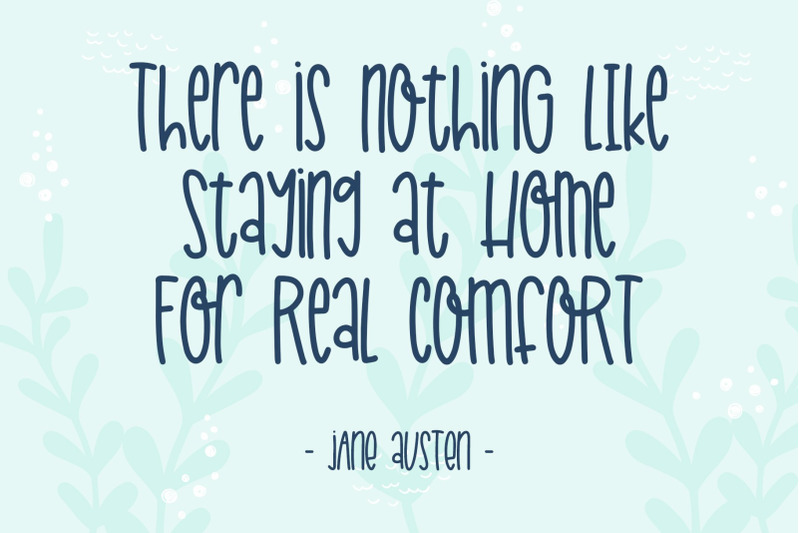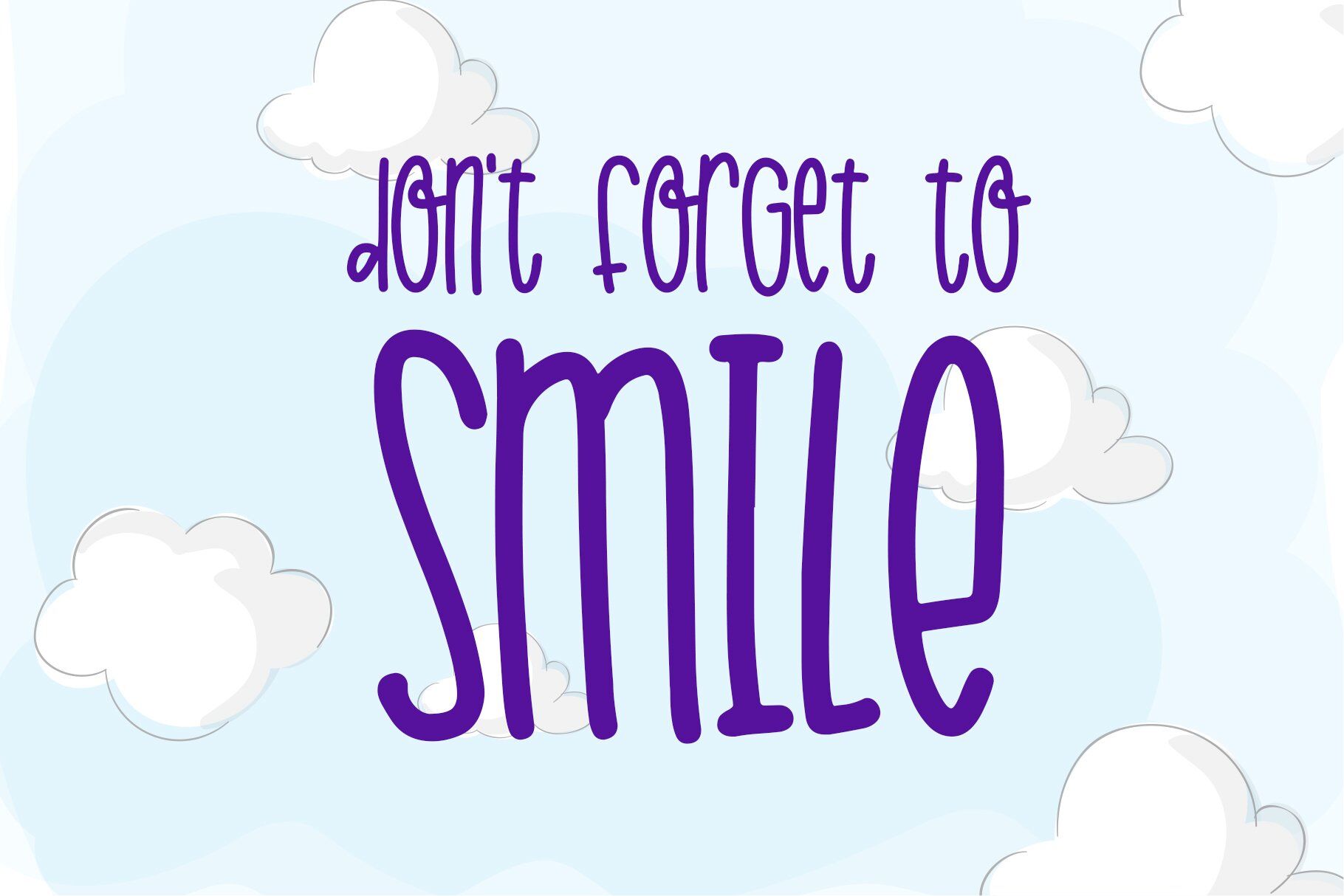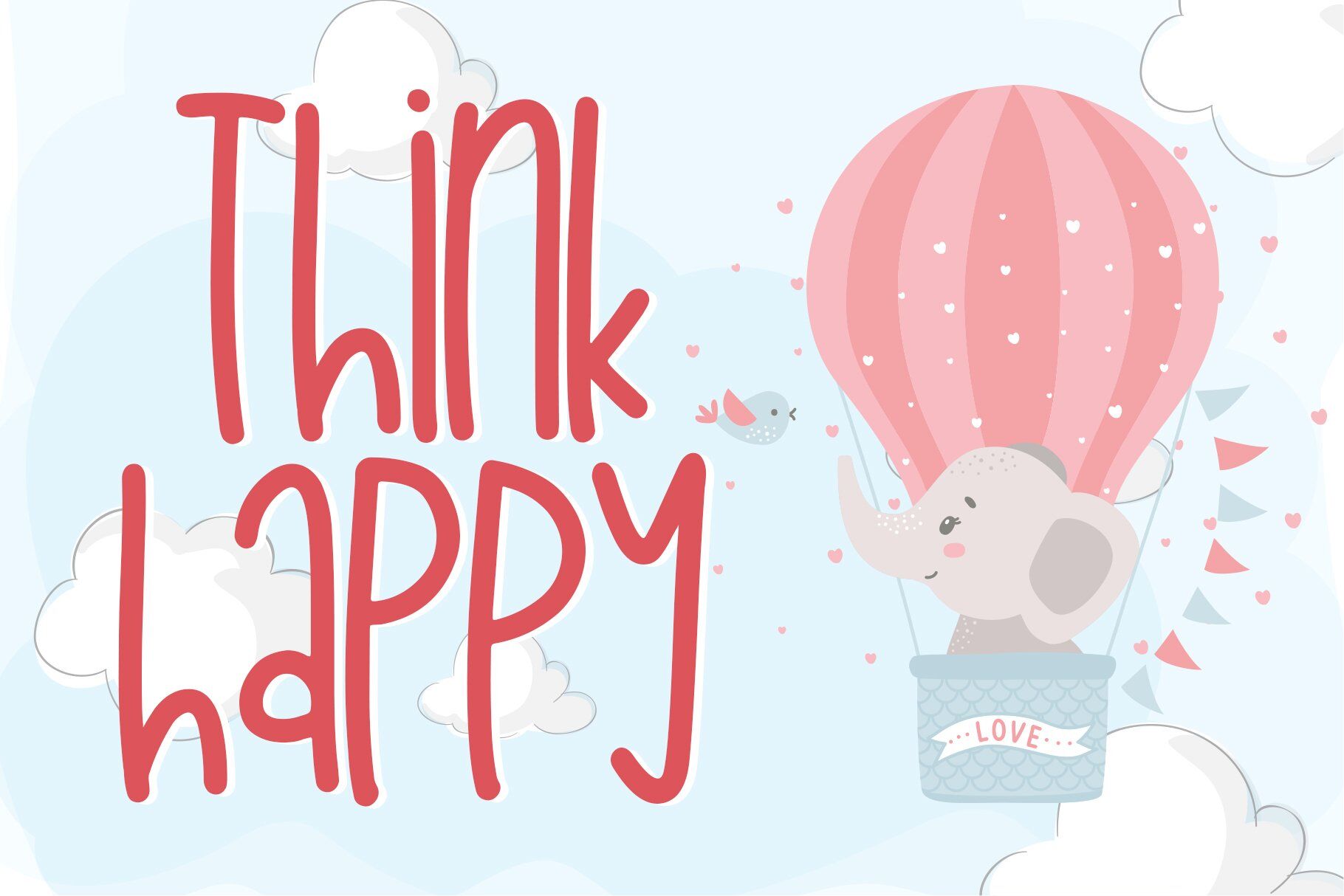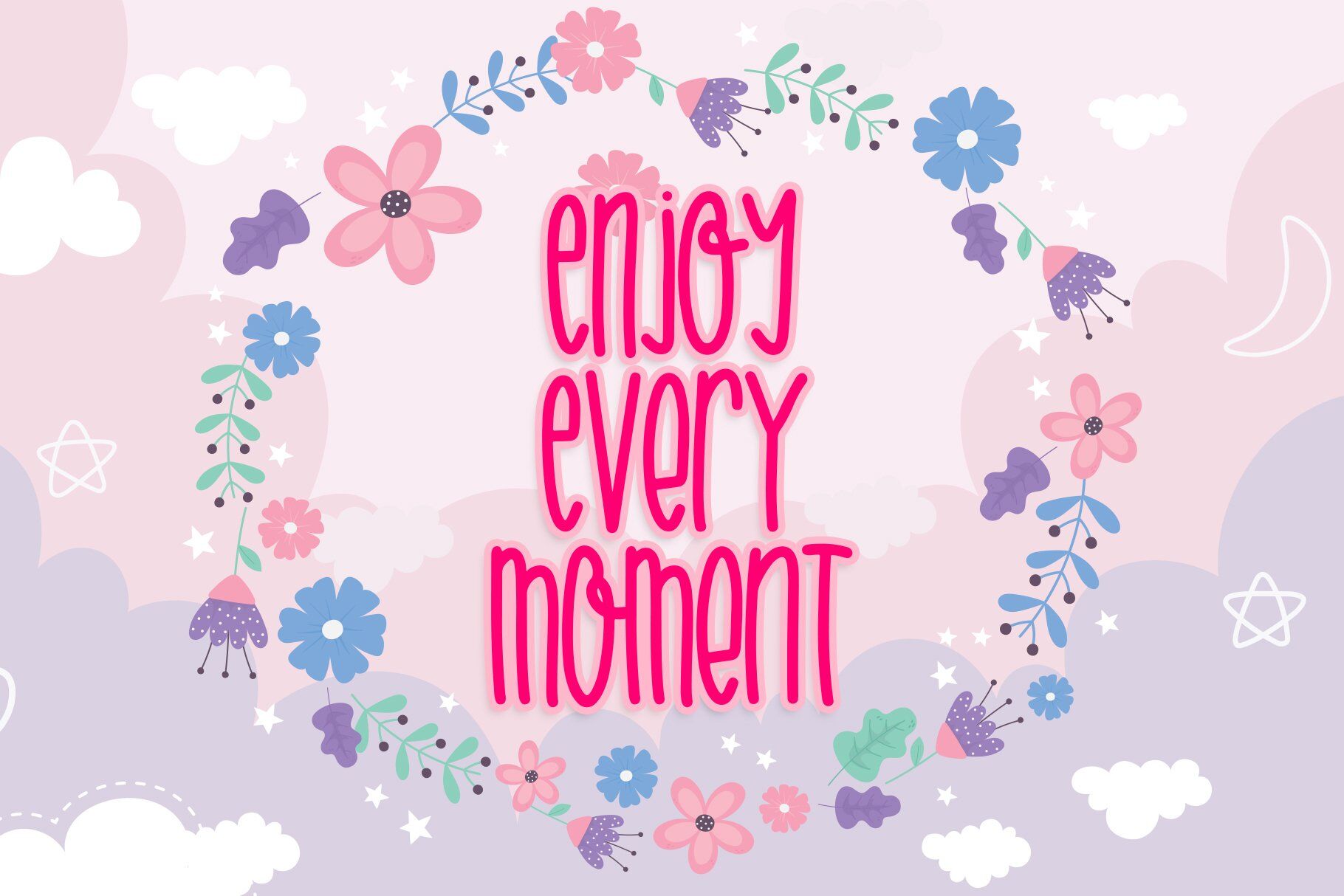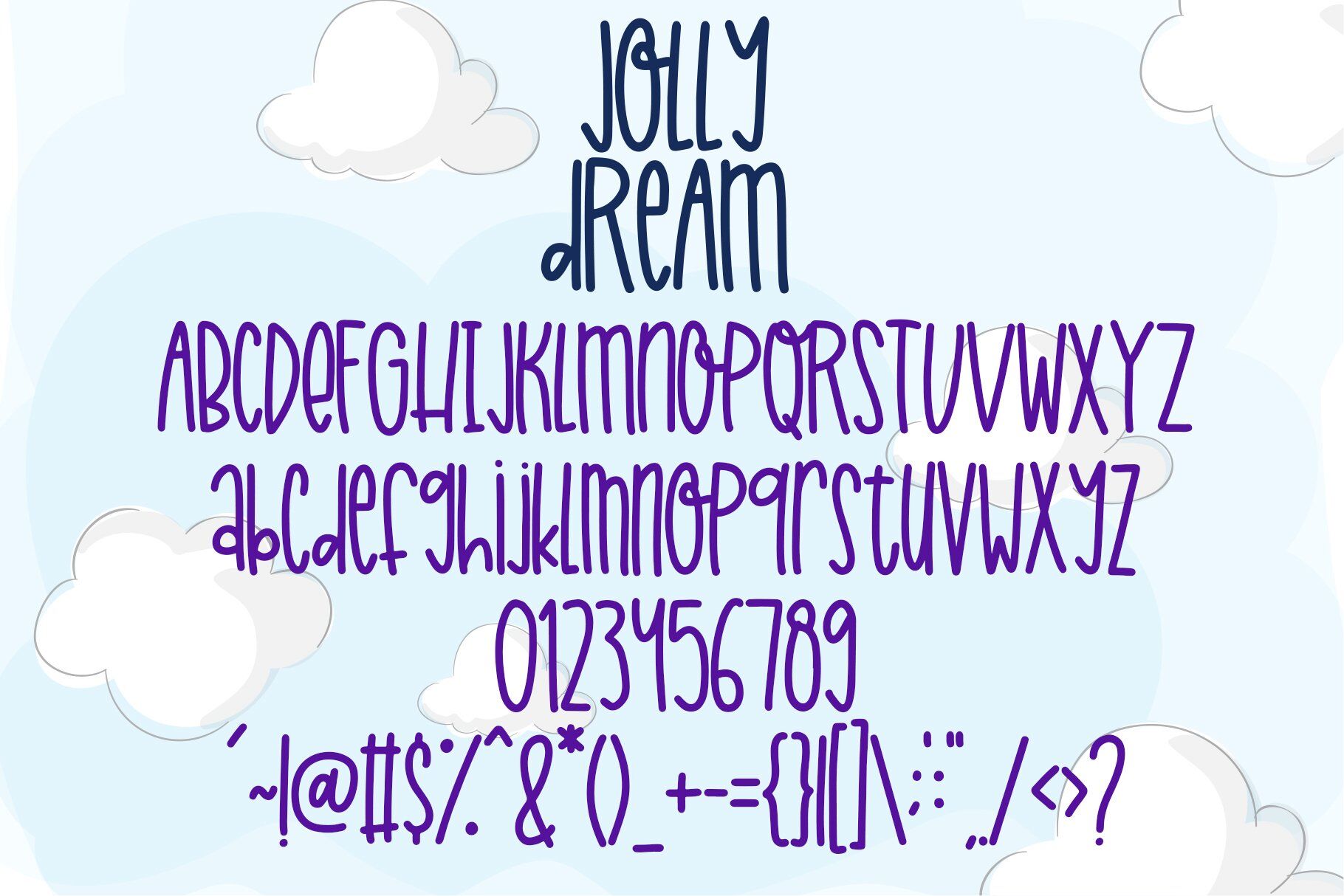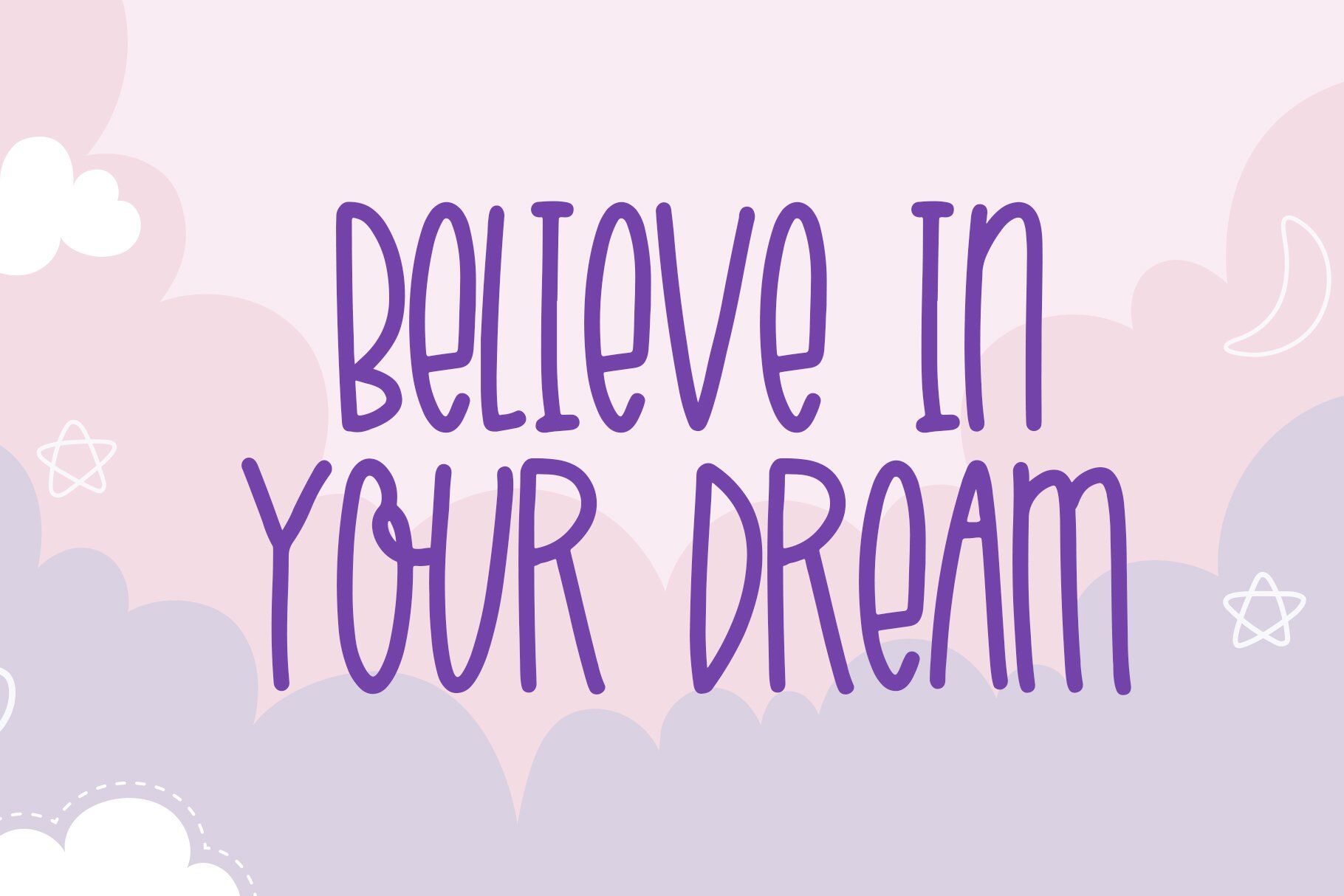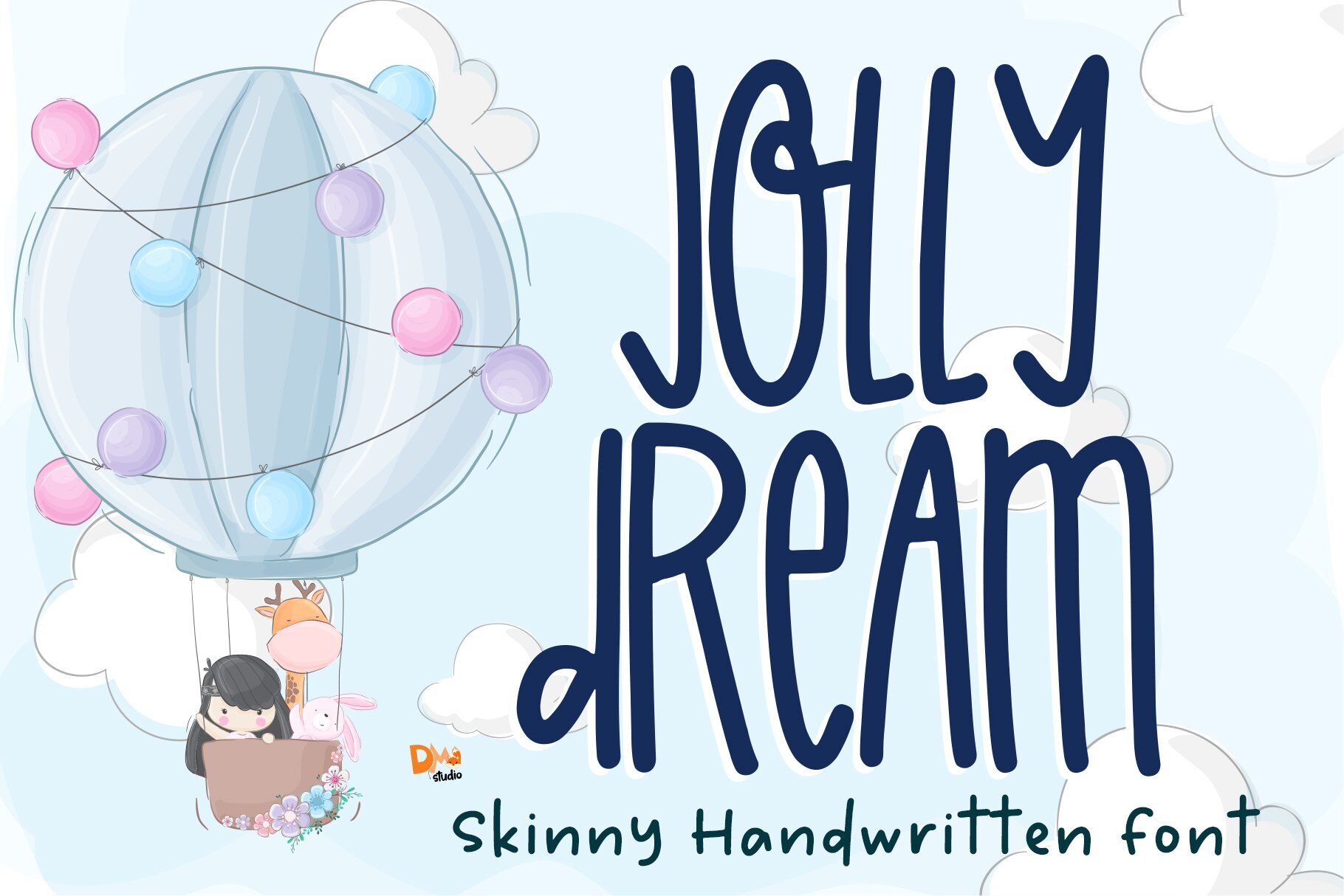
The Jolly Dream Skinny Handwritten Font is a playful and whimsical typeface that exudes a sense of joy and lightheartedness. With its slender and expressive letterforms, this font brings a touch of fun and elegance to your designs, making it perfect for invitations, greeting cards, logos, and other creative projects.
Features:
Playful and Whimsical Style: The Jolly Dream Font embodies a lively and carefree aesthetic. Its slender and expressive letterforms capture the essence of playfulness and joy, creating a delightful and captivating look for your designs.
Skinny Handwritten Design: The font's skinny strokes and handwritten appearance add a personal and human touch to your typography. It emulates the natural flow and organic qualities of handwriting, infusing your designs with a sense of authenticity and charm.
Versatile Application: This font is versatile and well-suited for various design projects that aim to evoke a sense of fun and elegance. Use it in invitations, greeting cards, social media graphics, branding, and more to add a touch of whimsy and sophistication to your designs.
Uppercase and Lowercase Letters: The font includes both uppercase and lowercase letters, providing flexibility and creative freedom in your designs. Mix and match the cases to create visually appealing and balanced typography.
Punctuation and Symbols: In addition to the alphabet, the Jolly Dream Font includes a comprehensive set of punctuation marks, numerals, and common symbols. This ensures consistency and ease of use when incorporating the font into your design projects.
Infuse your designs with the playful and whimsical vibe of the Jolly Dream Skinny Handwritten Font. Let its slender and expressive letterforms bring a touch of fun and elegance to your invitations, greeting cards, and logos. Embrace the lively nature of this font and create designs that spread joy and capture attention with their delightful typography.